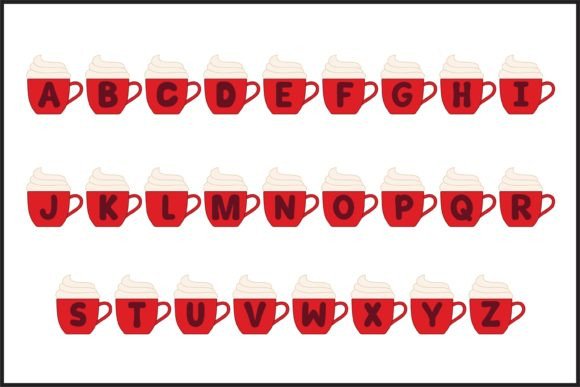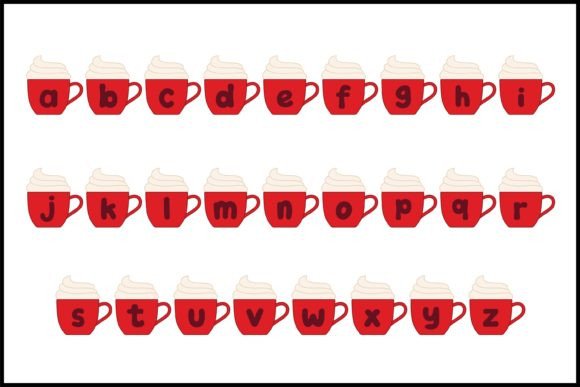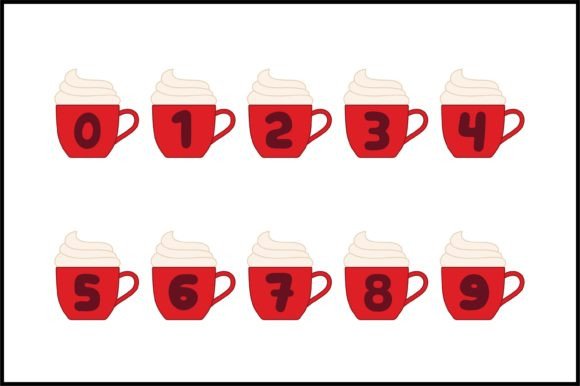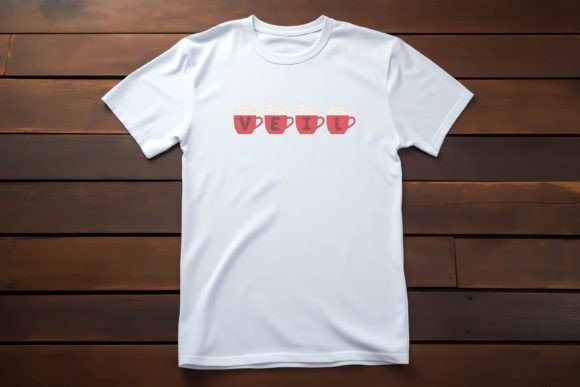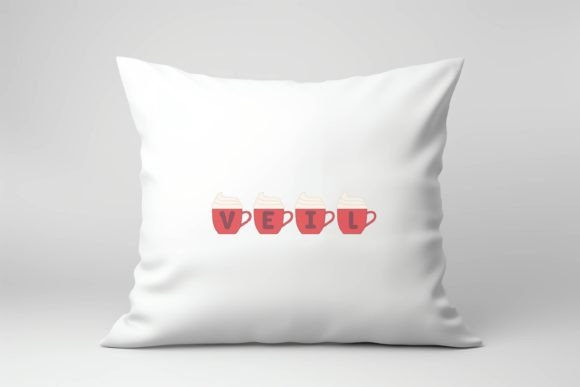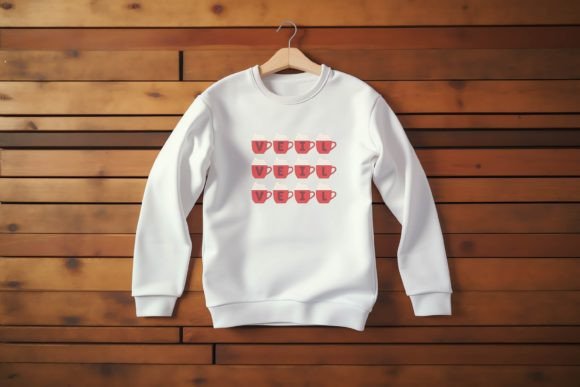
Introduction to Santa Mug Font Font
Fonts play a crucial role in design, and the Santa Mug Font font is a typeface that brings both character and versatility to any project. Whether you’re working on a branding project, a website, or a print design, the Santa Mug Font font offers a unique style that can elevate your work.
These fonts are often used in designs that aim to convey a playful or artistic feel, such as childrenโs books, posters, invitations, greeting cards, and more.
Key Features of Santa Mug Font Font
Why Choose Santa Mug Font Font?
The Santa Mug Font font is more than just a typeface โ it’s a design tool that helps you communicate your message with style and clarity. Its unique character set and versatile design make it suitable for a wide range of applications, from elegant invitations to bold headlines.
With its carefully crafted letterforms and balanced proportions, the Santa Mug Font font ensures readability and visual appeal across all mediums.
What makes Santa Mug Font font special?
The Santa Mug Font font stands out with its unique design, exceptional readability, and versatility across various design applications.